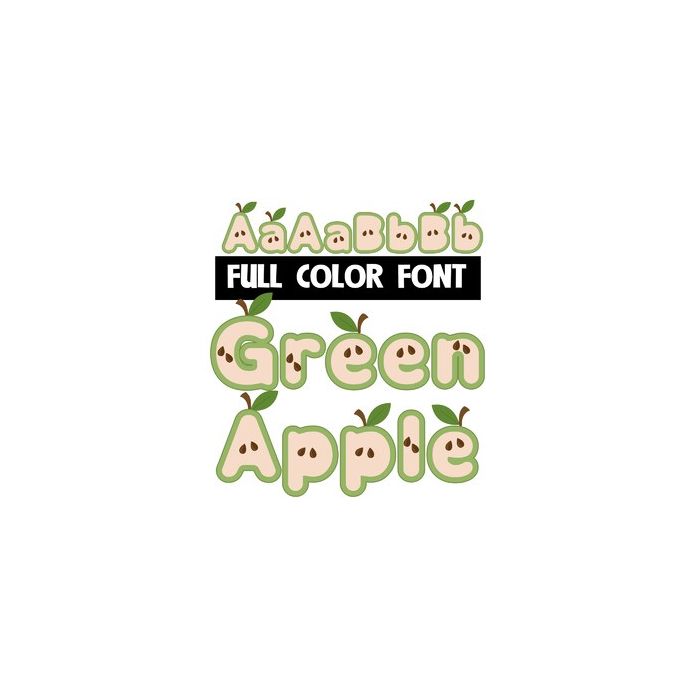
This full-color font features lettering that looks like sliced green apples. There is an alt case that differs that you can access through your system or Silhouette's glyph map.